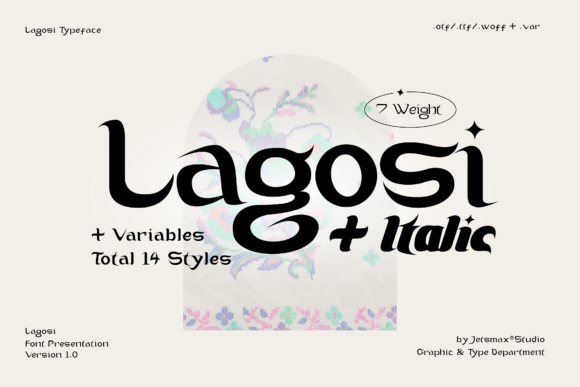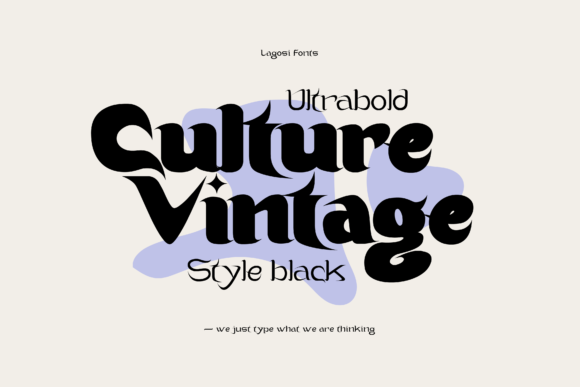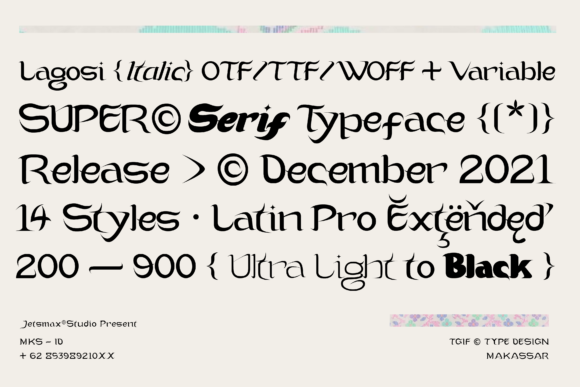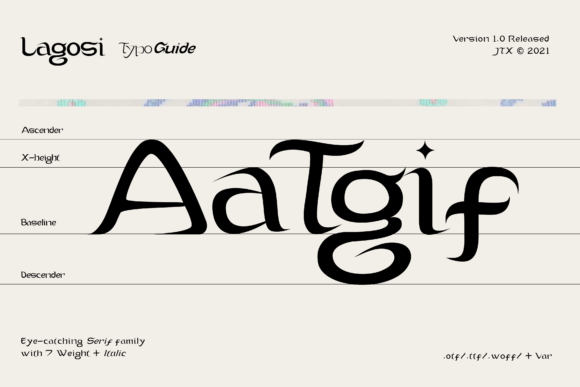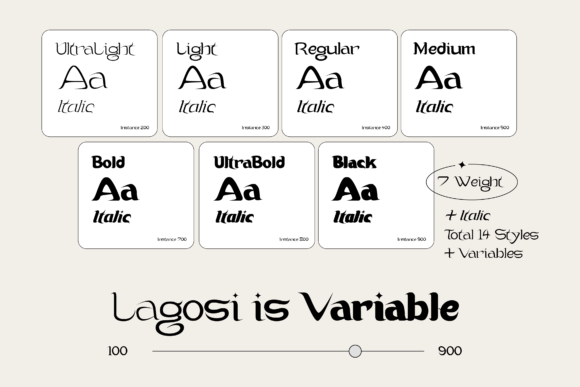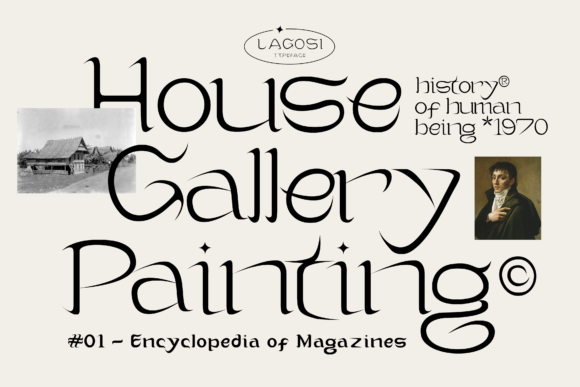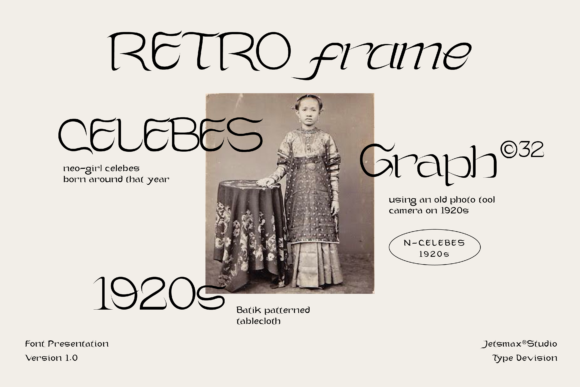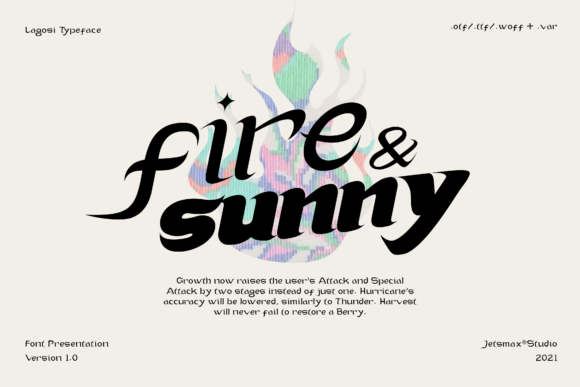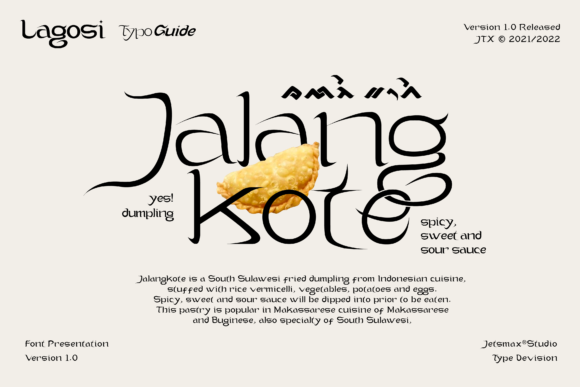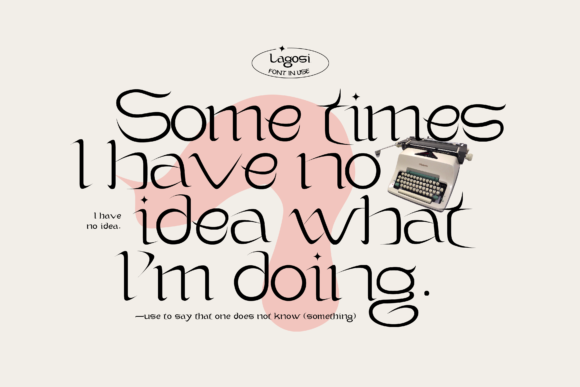
Lagosi
Lagosi Fonts
Lagosi: A Pointed Slab Serif Font Inspired by South Sulawesi Fabric
Lagosi is a distinctive slab serif font that draws inspiration from the unique features of Lagosi fabric found in Wajo, South Sulawesi. This versatile typeface offers a range of weights and styles, making it perfect for adding both elegance and strength to various design projects.
Key Features of Lagosi
• Pointed Slab Serif Design: Features a unique combination of slab serifs with pointed details.
• Weight Range: Offers styles from light, elegant cuts to bold, strong black weights.
• Italic Gestures: Includes a set of italic variations for added versatility.
• Custom Bindings: Provides additional custom character combinations for unique designs.
• Cultural Inspiration: Draws from the rich textile heritage of South Sulawesi.
• Versatile Application: Suitable for adding sparkle and elegance to various design projects.
Ideal Uses for Lagosi
Lagosi’s unique characteristics make it particularly well-suited for:
• Elegant branding and logo design
• Fashion and textile-related projects
• Cultural and heritage-inspired designs
• Editorial layouts and headlines
• Packaging design with a touch of elegance
• Poster and advertisement layouts
When incorporating Lagosi into your designs, consider these tips:
• Experiment with different weights to achieve the desired balance of elegance and strength
• Use italic variations for emphasis or to create a more dynamic look
• Explore custom bindings for unique typographic compositions
• Take advantage of its cultural inspiration for projects related to Indonesian or Southeast Asian themes
Lagosi is an excellent choice for designers looking to add a touch of cultural elegance to their typographic toolkit. Its unique blend of pointed slab serif design and inspiration from South Sulawesi fabric makes it stand out in the world of typography. Whether you’re working on logo designs for fashion brands, creating layouts for cultural publications, or developing content that requires a balance of strength and elegance, Lagosi offers the perfect blend of style and versatility.
Furthermore, Lagosi’s range of weights and styles allows it to shine in various contexts. From vintage-inspired designs with a cultural twist to more contemporary layouts that need a touch of sophistication, this font can elevate your projects. Its unique pointed slab serif style works particularly well in designs that require a thoughtful and refined mood.
In conclusion, Lagosi is a font that truly brings the essence of South Sulawesi fabric to life in typography. Its ability to work well in both elegant, culturally-inspired projects and more modern designs showcases its flexibility. For those looking to add a dash of cultural elegance with a strong presence, Lagosi can even enhance themed creations with its unique, fabric-inspired style.